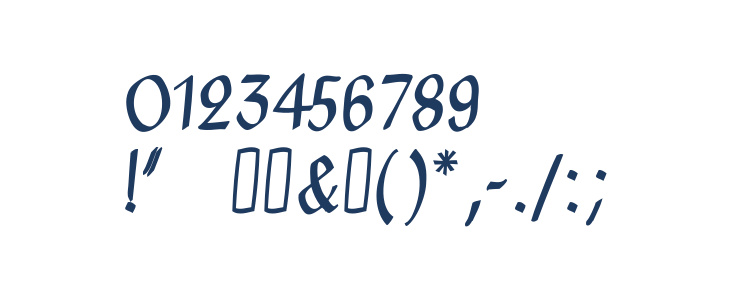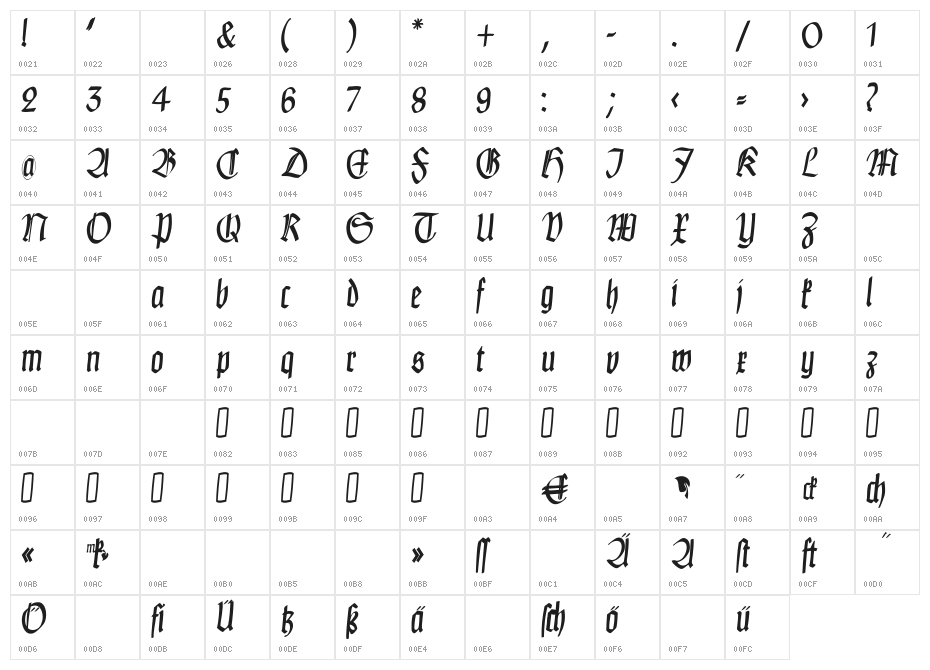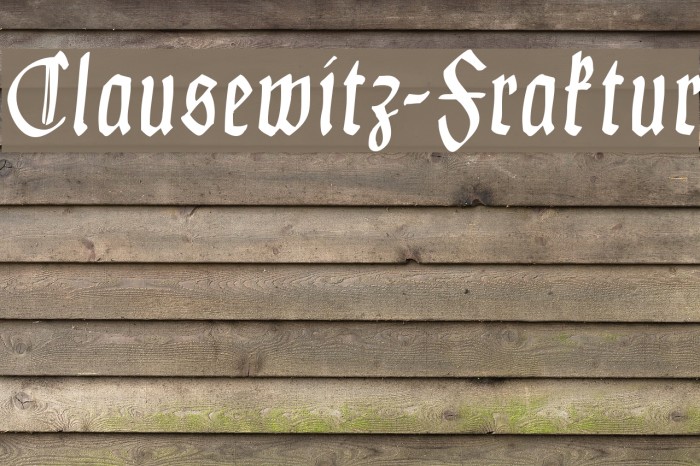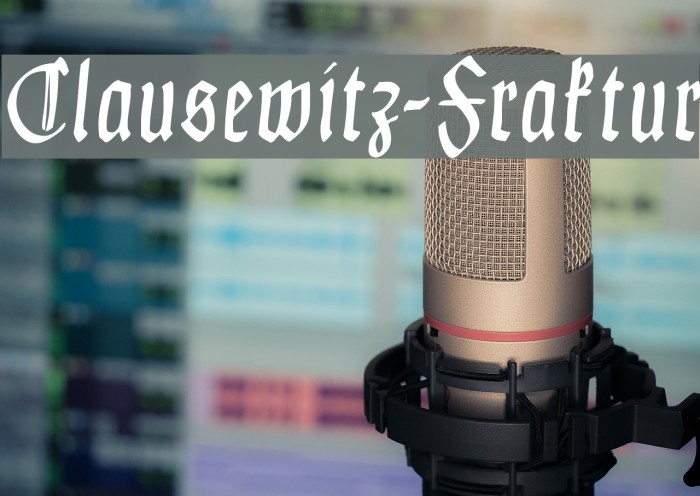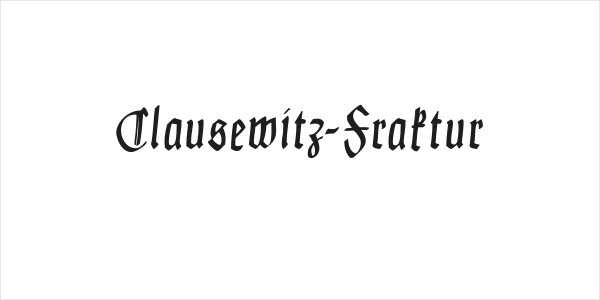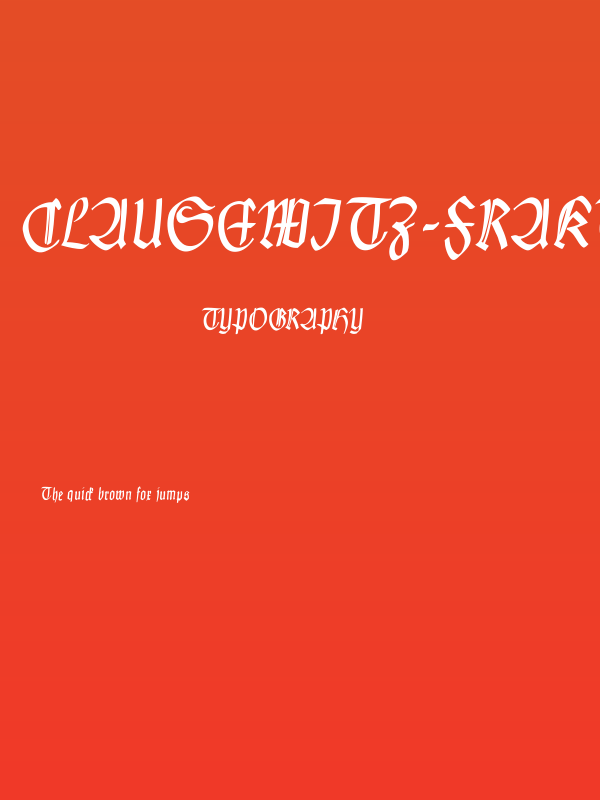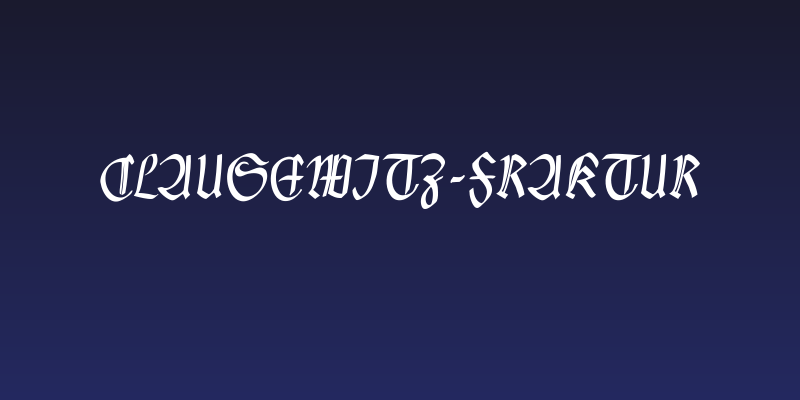
Clausewitz-Fraktur Font
Clausewitz-Fraktur Description
This font is a classic example of the Blackletter style, characterized by its ornate and intricate letterforms. The uppercase letters exhibit sharp, angular lines with a distinct medieval aesthetic, while the lowercase letters maintain a similar complexity with a slightly more fluid appearance. The numerals are bold and consistent with the overall style, providing a cohesive look. Special characters are designed with the same attention to detail, enhancing the font's decorative appeal. This font is perfect for projects that require a historical or traditional touch, such as certificates, invitations, or branding that seeks to evoke a sense of heritage.